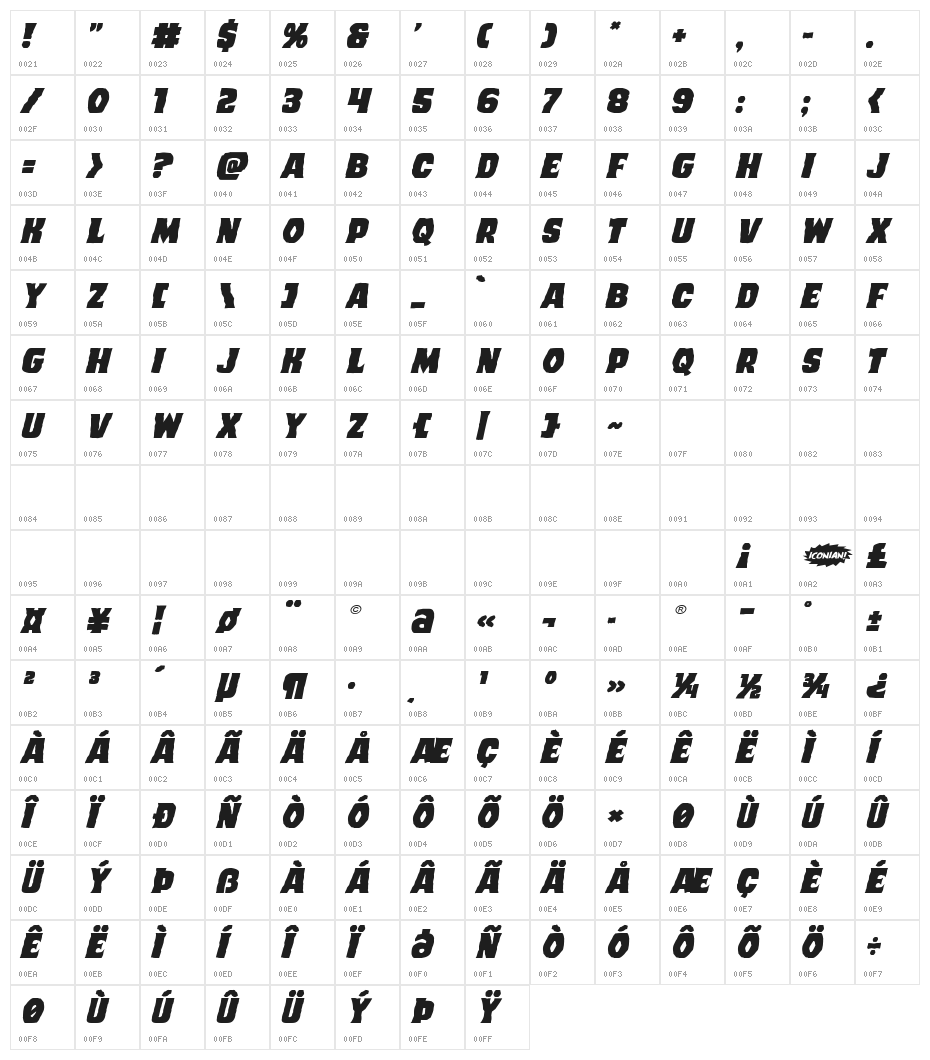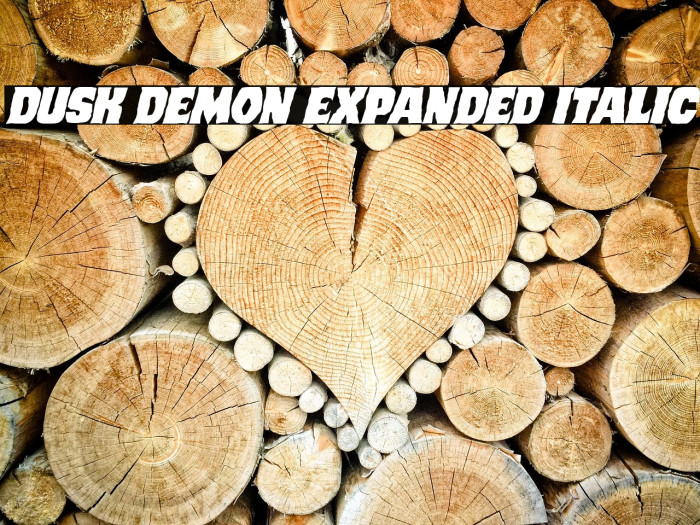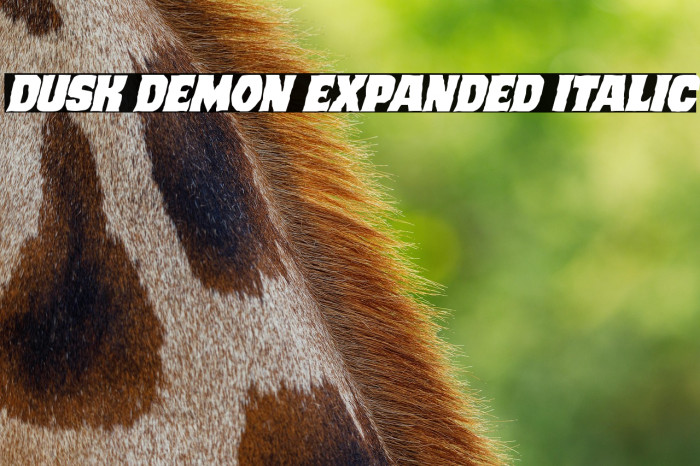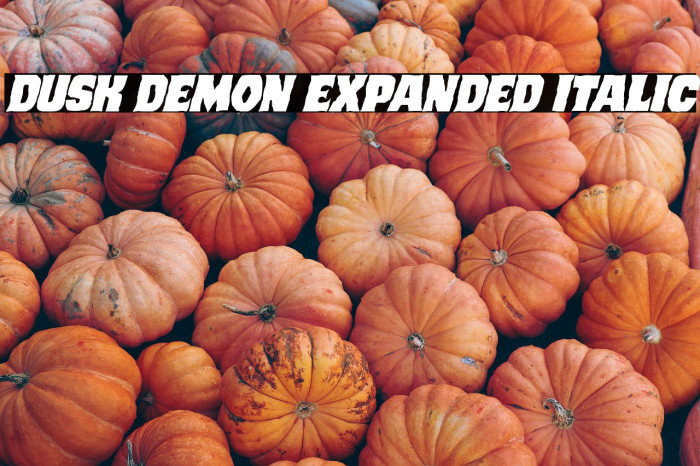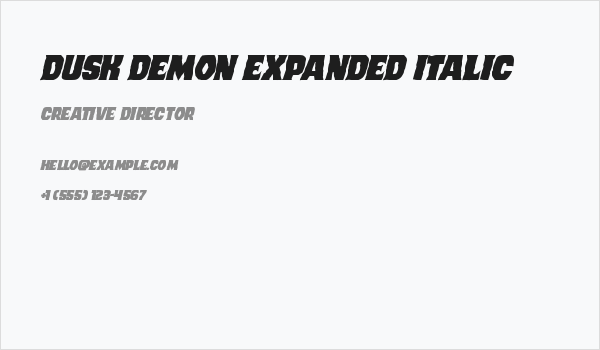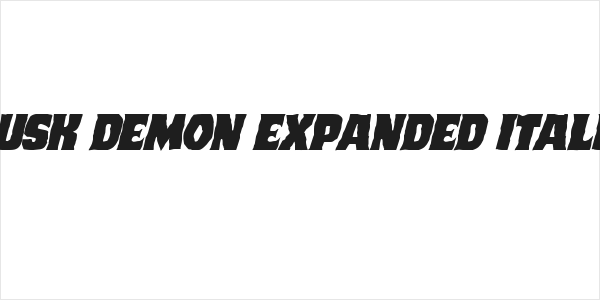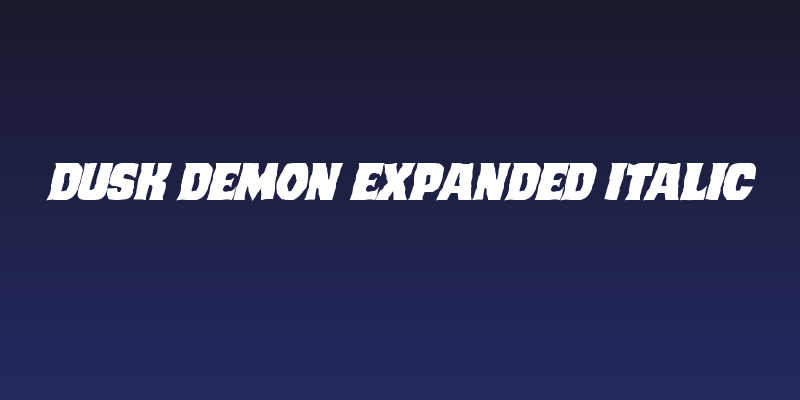
Dusk Demon Expanded Italic Font
Dusk Demon Expanded Italic Description
This font features a bold and dynamic style with an italic slant, giving it a sense of movement and energy. The characters are heavily weighted, with thick strokes that convey strength and impact. The expanded width of the letters provides a commanding presence, making it ideal for attention-grabbing headlines or titles. The overall design is modern and slightly aggressive, with sharp angles and a slightly rough texture that adds a unique character to the typeface. The spacing between characters is relatively tight, enhancing the compact and powerful appearance of the text. This font is well-suited for projects that require a bold statement, such as posters, logos, or branding materials.
| Proposed Projects | Ideal for posters, logos, branding materials, and any project needing a bold statement. |